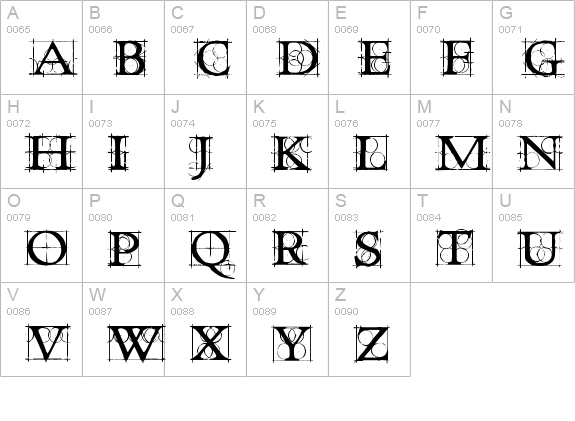
Introducing Roughwork Demo font, a versatile and dynamic typeface perfect for adding a touch of edginess to your designs. This unique font features rough edges and a handcrafted feel, making it ideal for projects that require a raw and rugged aesthetic. Whether you're working on posters, logos, or branding materials, Roughwork Demo font is sure to make a bold statement. The best part? Roughwork Demo font is completely free to download at FontsMarket.com. Take advantage of this fantastic offer and add this one-of-a-kind font to your collection today. Let your creativity run wild with the distinct character and charm of Roughwork Demo font. Download it now and start creating eye-catching designs with ease.